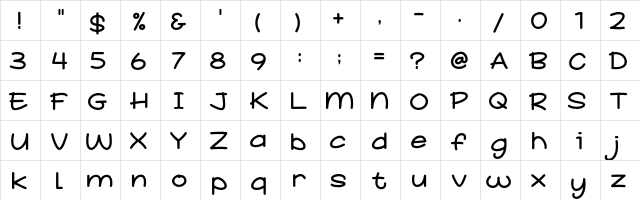
School Story Regular
| Foundry | Khurasan |
| Designer | Khurasan |
Design Context for School Story Typeface
School Story is a composed and adaptable typeface that performs quietly and consistently across a wide range of design contexts.